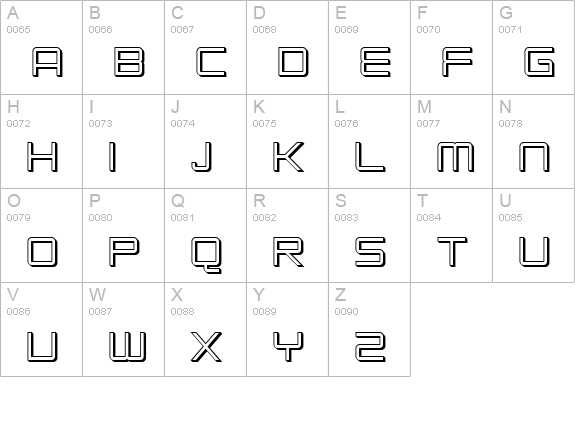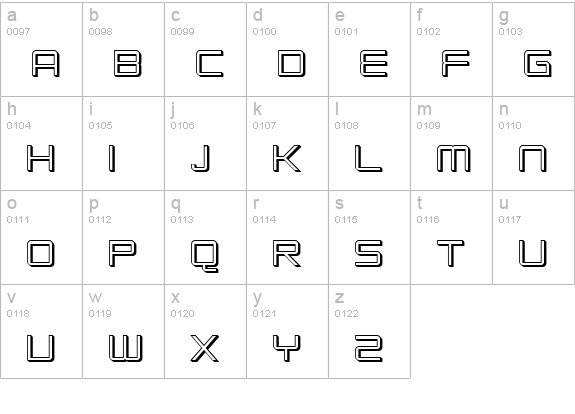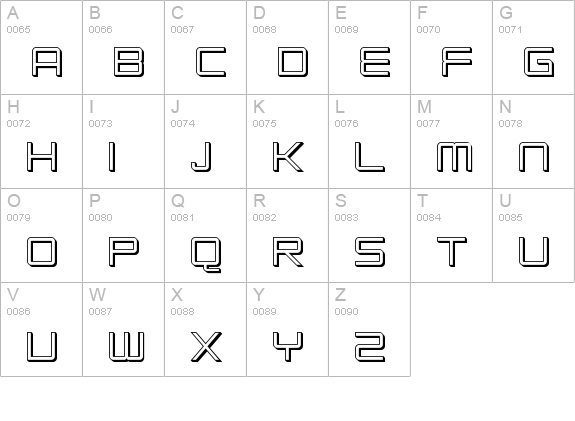
SF Chromium 24 SC Font Details
SF Chromium 24 SC font is a stunning and versatile typeface that combines sleek and futuristic elements with a touch of sophistication. This modern sans-serif font is perfect for a wide range of design projects, including branding, advertising, editorial work, and more. Featuring clean lines and sharp edges, SF Chromium 24 SC font exudes professionalism and elegance. Its condensed style adds a unique flair to any text, making it stand out while still maintaining readability. Whether used for headlines, subheadings, or body text, this font will leave a lasting impression on your audience. One of the best features of SF Chromium 24 SC font is that it is free. Yes, you heard that right! This amazing font is freely available to download at FontsMarket.com. It allows you to enhance your designs without breaking the bank. This means that you can get access to a high-quality font without having to worry about any additional costs. With its extensive character set and multiple weights, SF Chromium 24 SC font provides you with endless possibilities for creative experimentation. Its versatility makes it suitable for various design styles, from minimalistic and modern to bold and expressive. You can easily customize the font to fit your specific needs and create unique and eye-catching designs. Whether you are a professional designer or someone who simply enjoys playing around with typography, SF Chromium 24 SC font is a must-have in your font collection. Its sleek and futuristic design, combined with its free availability, makes it a valuable asset for any creative project. So why wait? Head over to FontsMarket.com and download SF Chromium 24 SC font today!